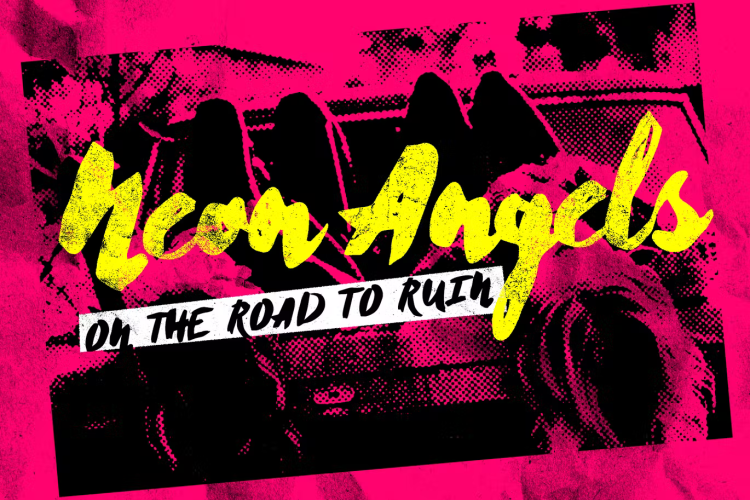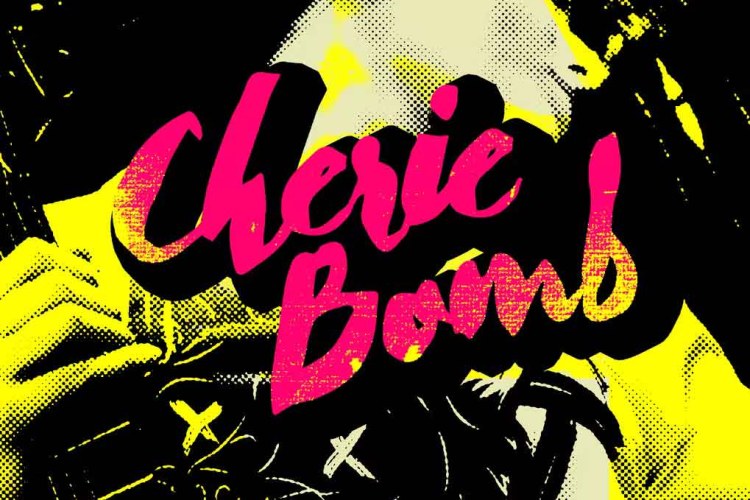
Cherie Bomb Font
Cherie Bomb is a handmade brush font with a punk-rock feeling, but with personality and heart. It will allow you to create stunning hand-lettering quickly and easily. Ch…
Cherie Bomb is a handmade brush font with a punk-rock feeling, but with personality and heart. It will allow you to create stunning hand-lettering quickly and easily.
Cherie Bomb includes over 350 characters, uppercase and lowercase, basic punctuation, numerals and works great with a lot of international languages besides english.
Where Cherie Bomb Font works best
A short phrase in Cherie Bomb Font carries warmth that a typeset sans cannot fake; keep the rest of the card plain.
Chalkboard-style headings in Cherie Bomb Font make a menu feel hand-made. Keep the dish descriptions in a simple face so prices stay readable.
One line of Cherie Bomb Font over a photo is enough; the script carries the tone and the caption does the work.
What kind of work does Cherie Bomb Font suit?
It sits in the Script And Handwritten group and reads as brush, handwritten, professional, script. That makes it a candidate wherever those qualities help: headings, packaging, social graphics and brand work. Set it at the size you plan to use before deciding.